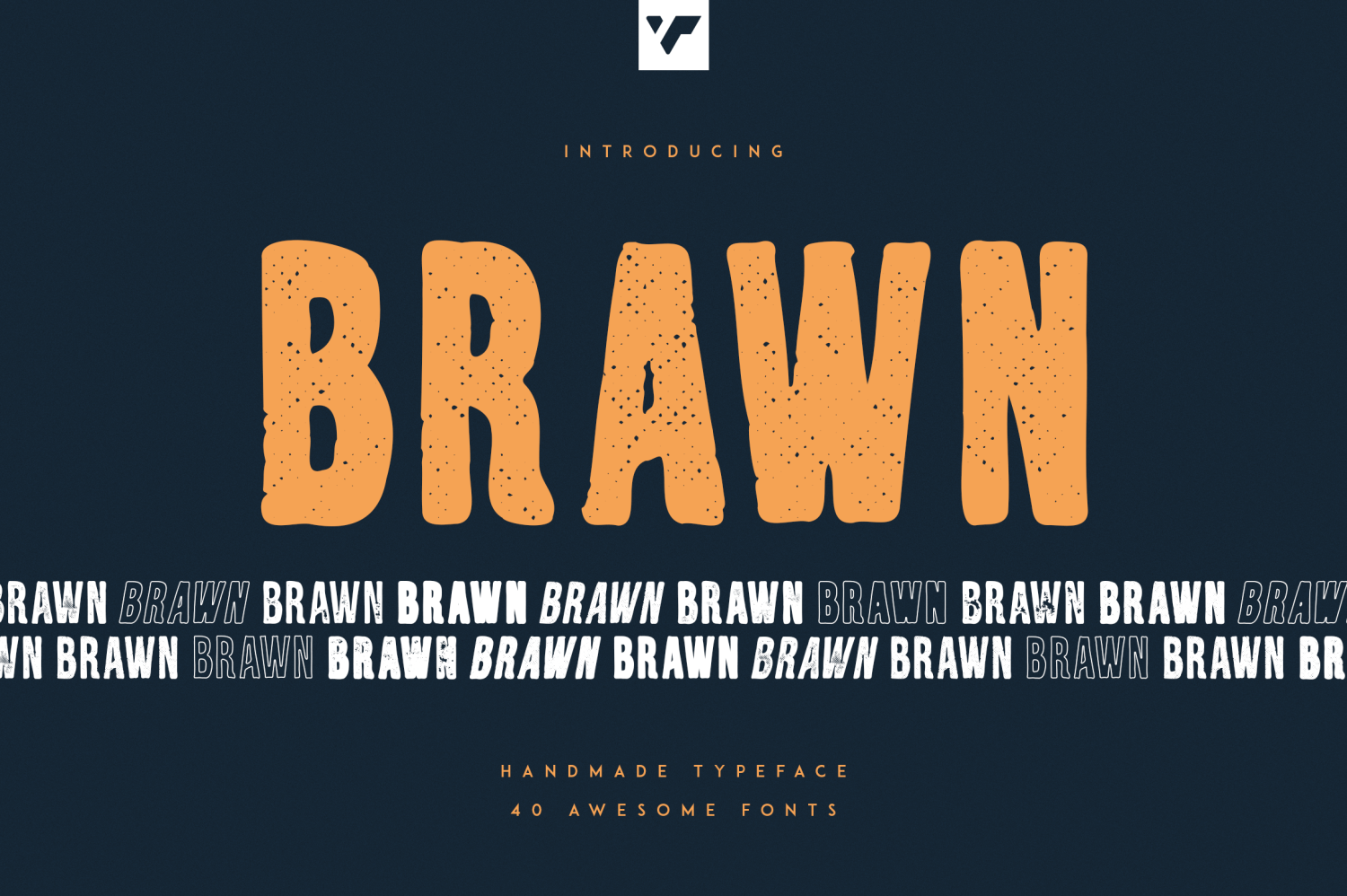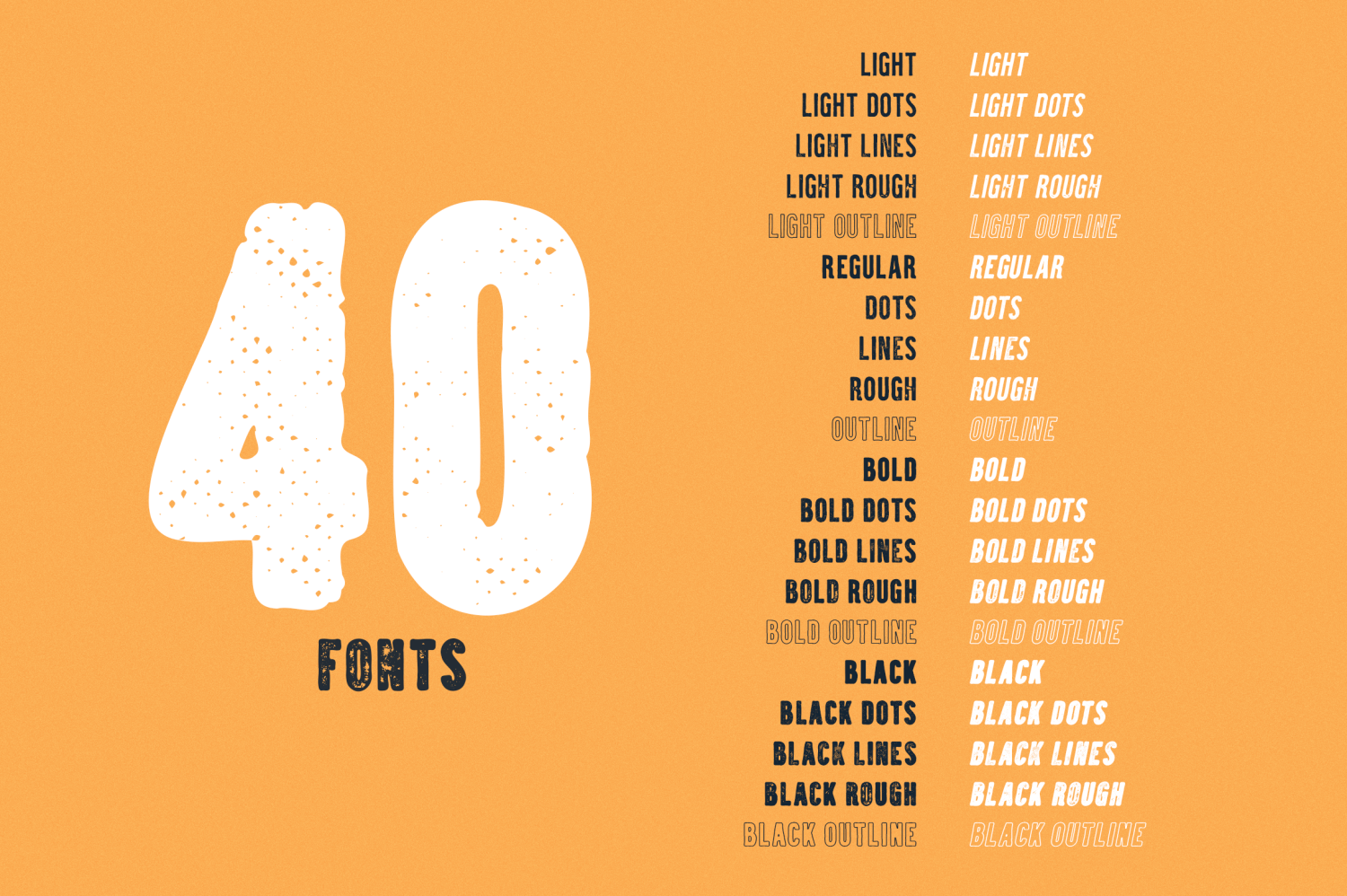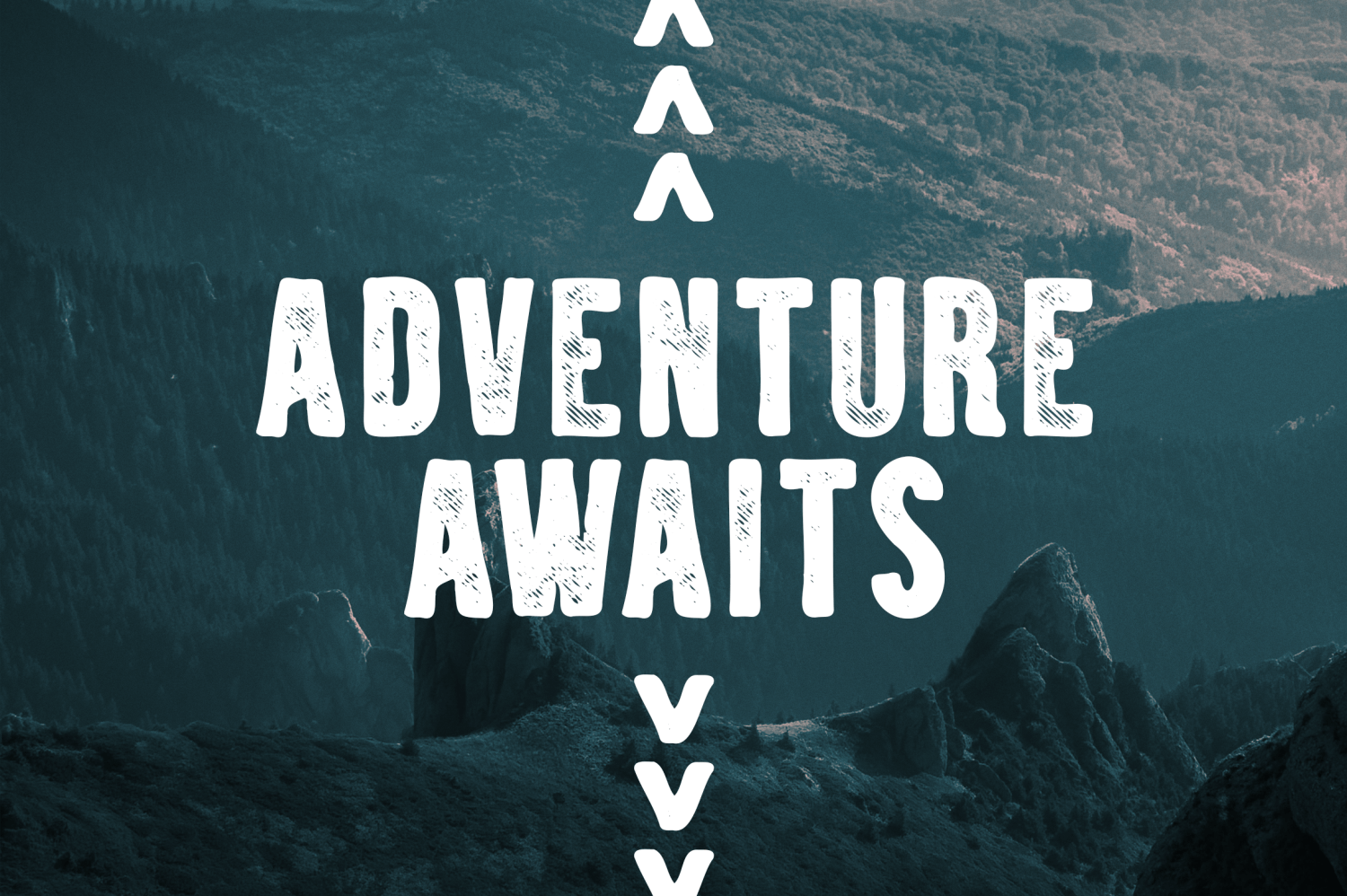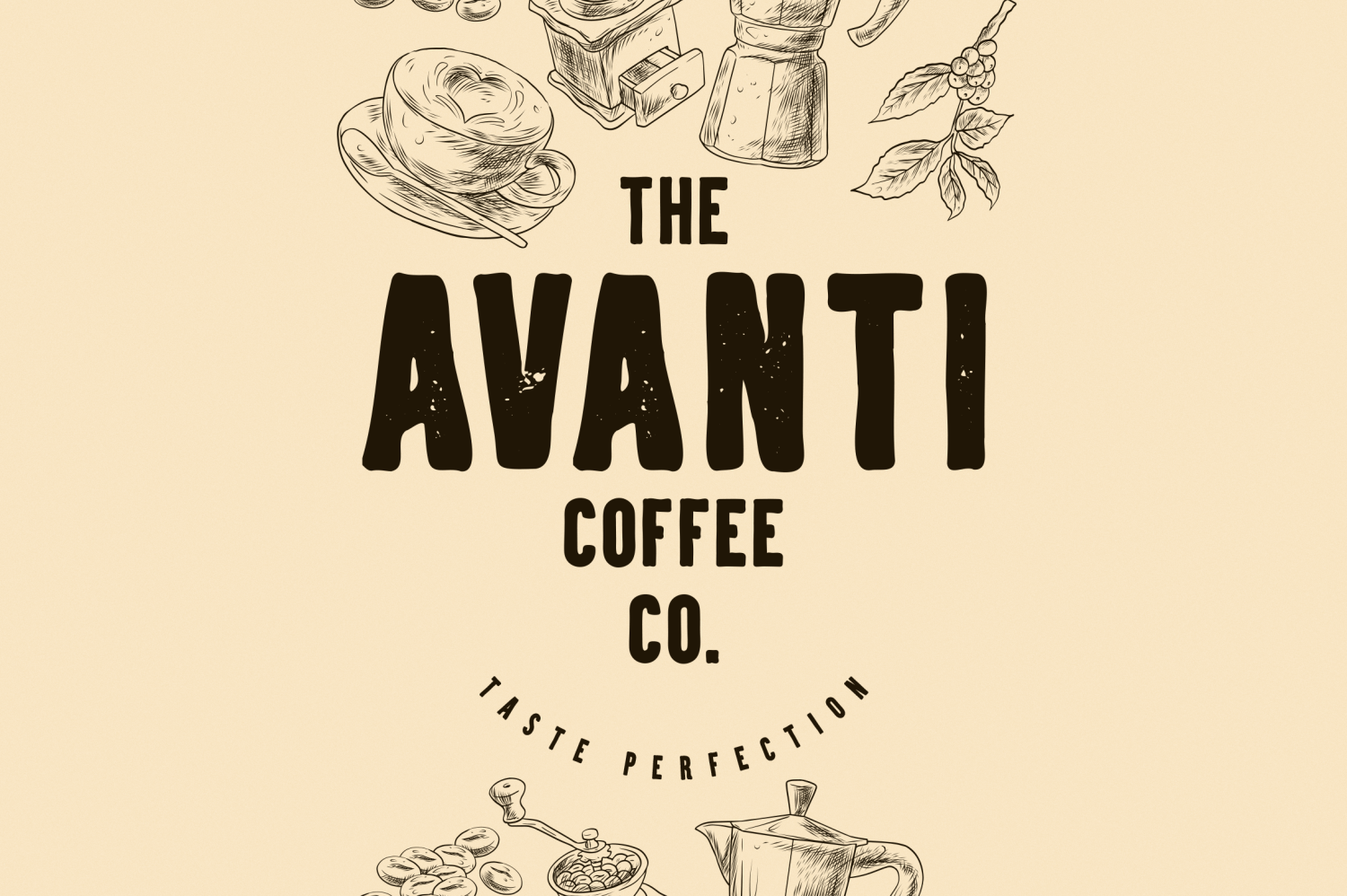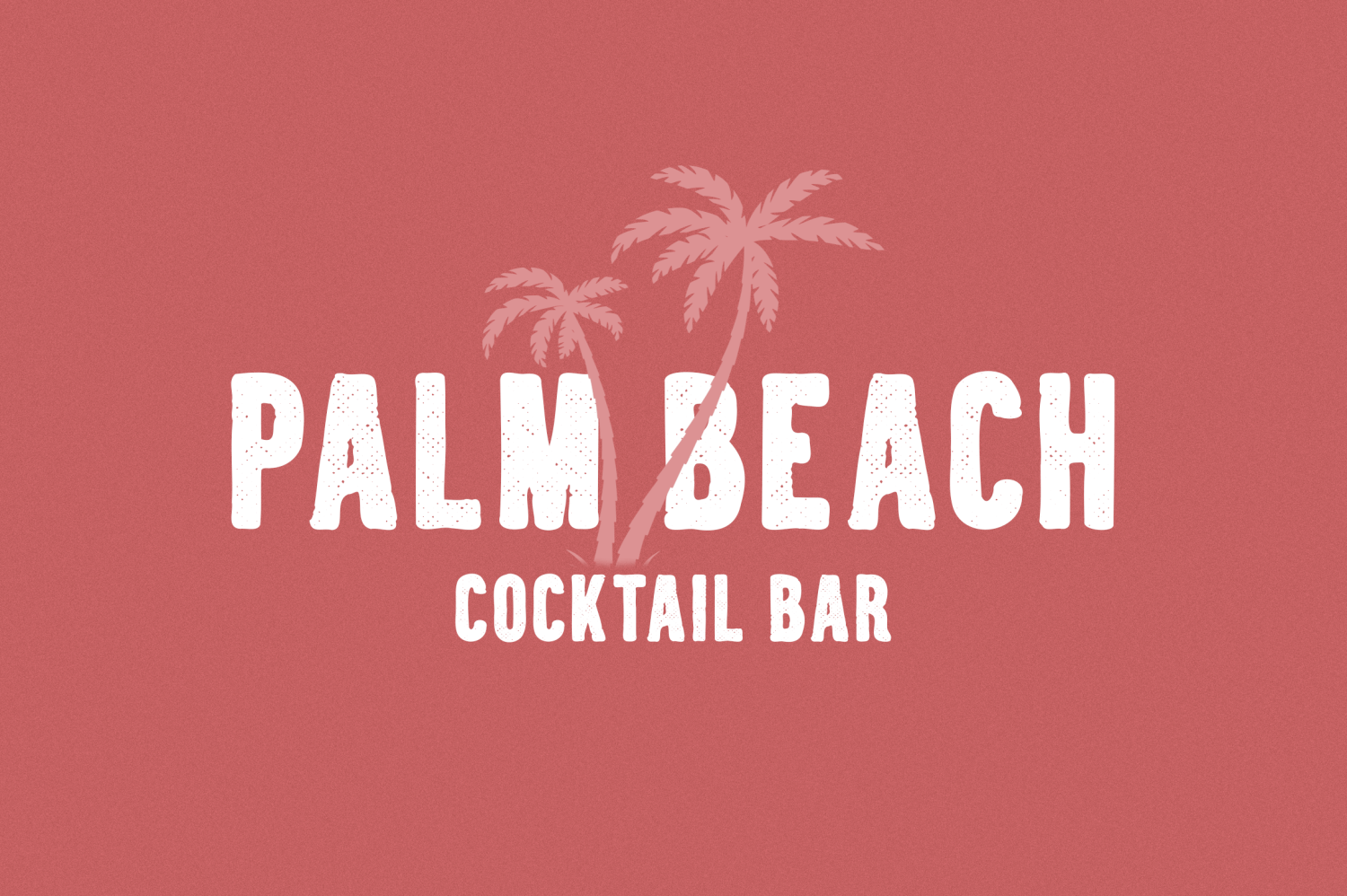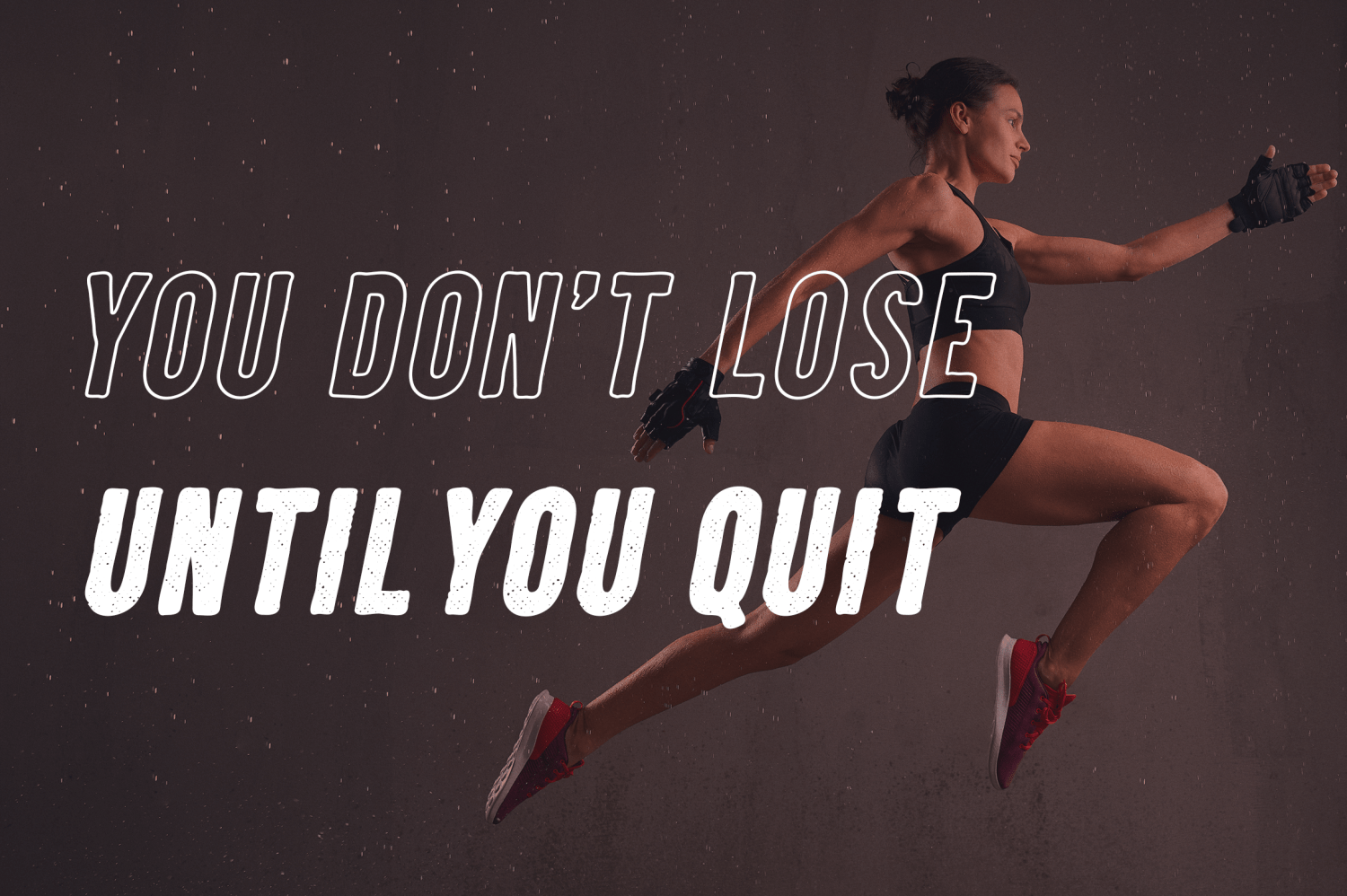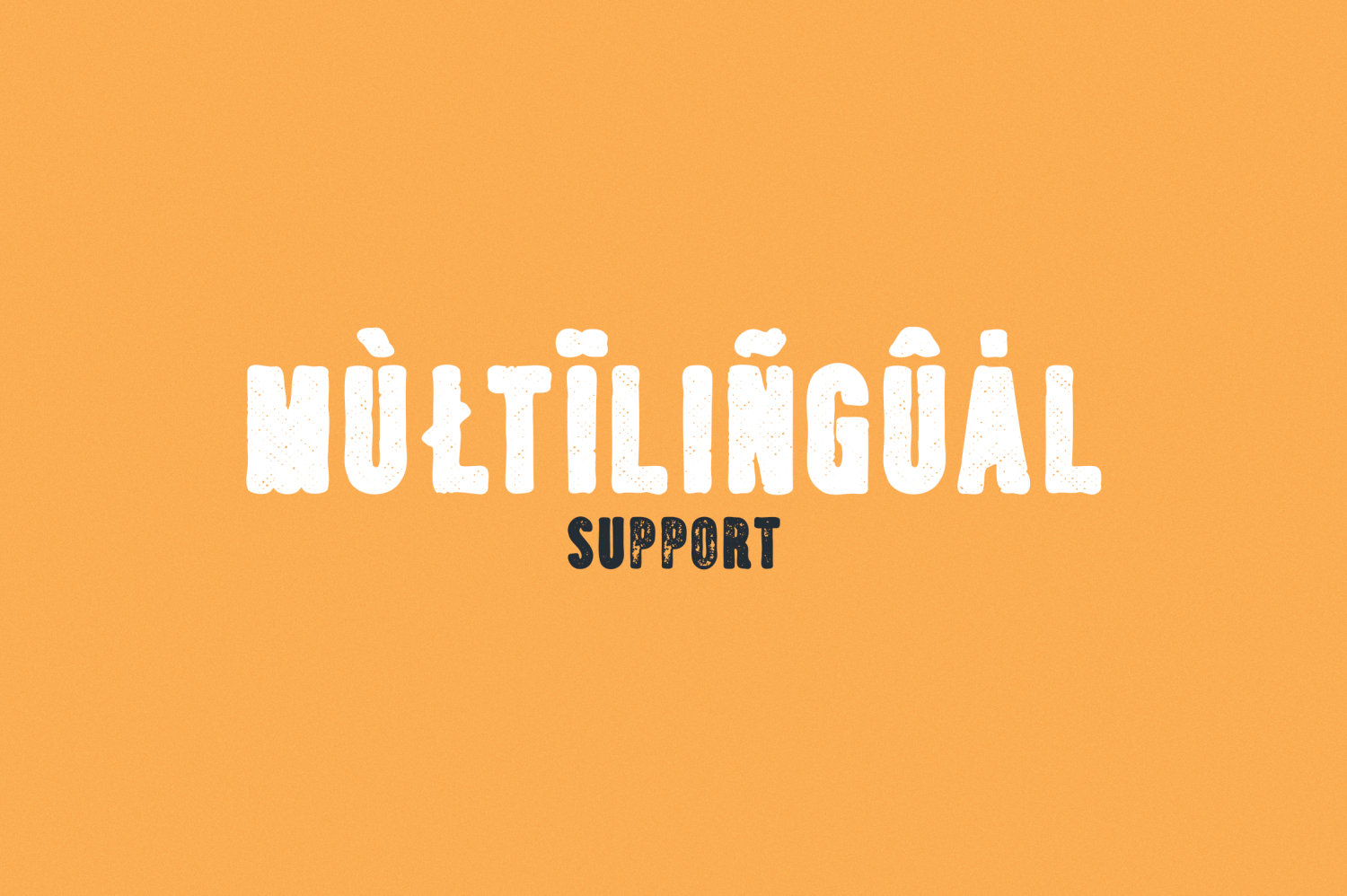
Brawn
About Brawn
Introducing Brawn – Handmade typeface – 40 fonts Brawn is handwritten and retro typeface loaded with 40 fonts and multilingual support to enchant your next project. Very versatile fonts that works great in large and small sizes. Brawn is perfect…